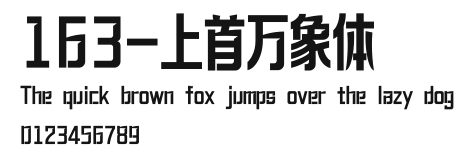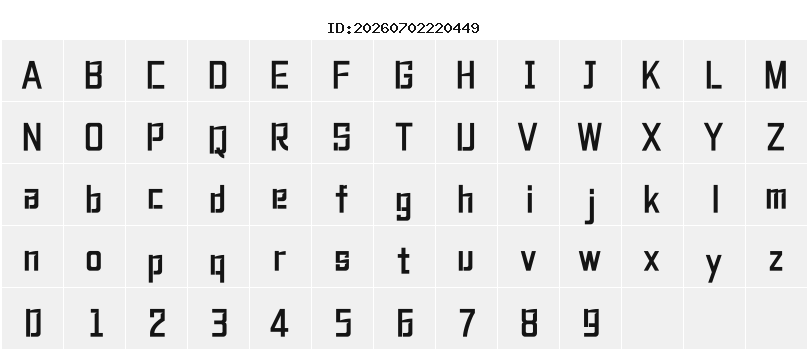
163-上首万象体 Preview
• Font Name: 163-上首万象体
• Full Font Name: 163-上首万象体
• Version: Version 1.30 July 23, 2022
• Character Count: 7569
About 163-上首万象体.ttf
163-上首万象体.ttf is a modern, elegant sans-serif font designed for ultimate readability and visual harmony. Perfect for branding, headlines, web design, and print materials.